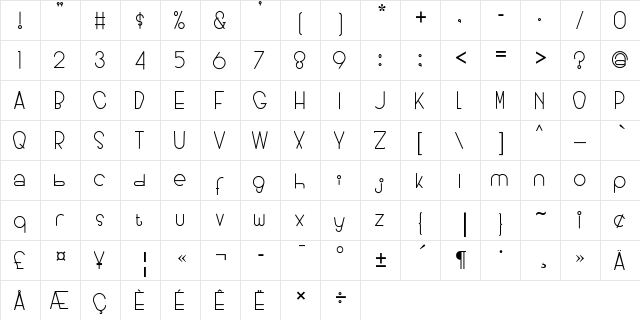
Arian Geralde Regular
Design Context for Arian Geralde Typeface
Arian Geralde offers clean, dependable letterforms without strong stylistic allegiance, making it a practical choice for designers who need flexibility.